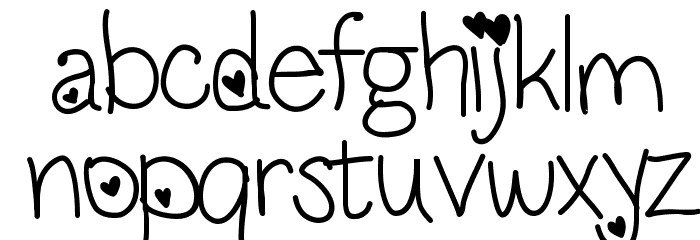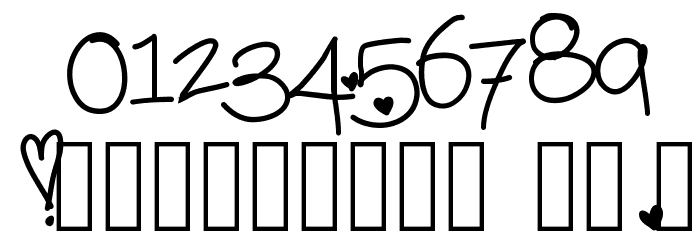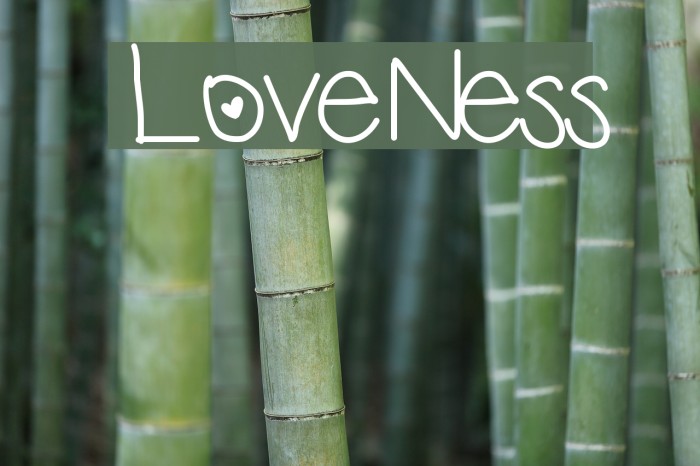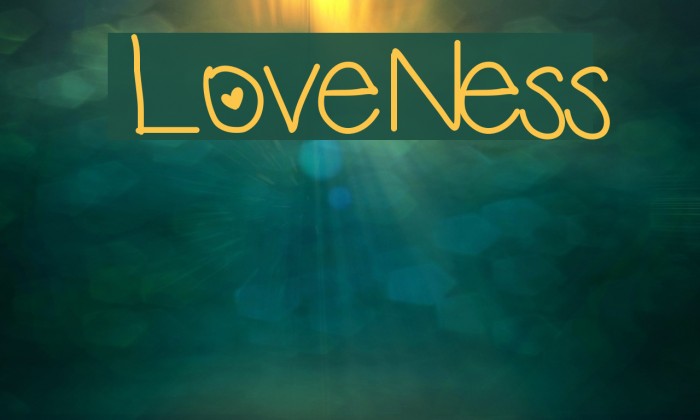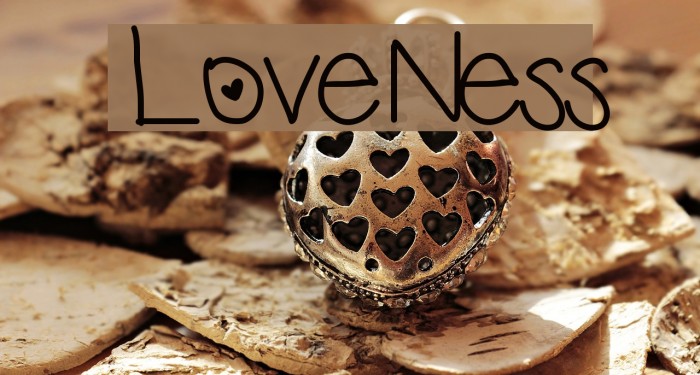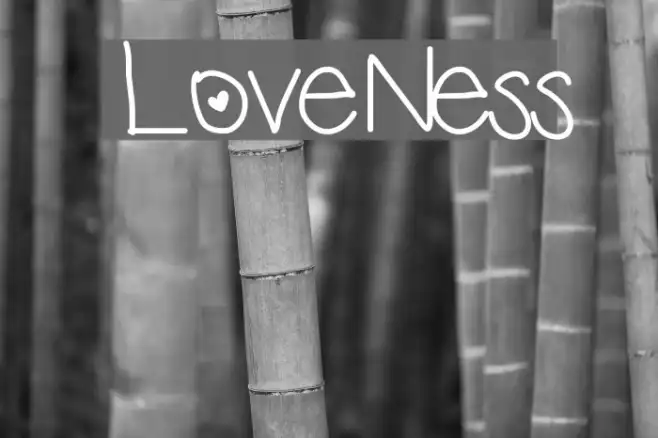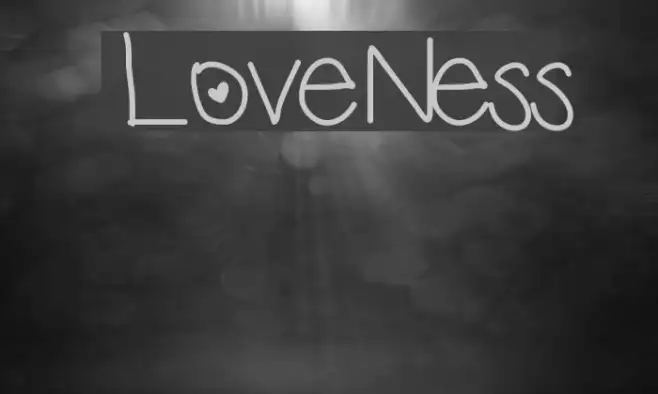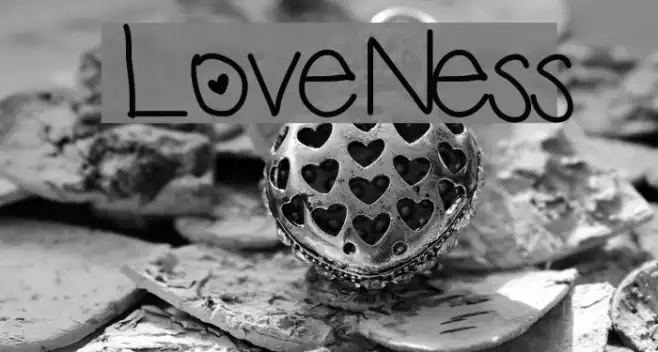
LoveNess Font
This playful and whimsical font features a handwritten style with unique heart embellishments integrated into several characters. The strokes are smooth and rounded, giving it a friendly and approachable appearance. The uppercase and lowercase letters maintain a consistent style, with the hearts adding a touch of charm and personality. Numbers and special characters are also included, each with its own distinctive flair. This font is perfect for projects that require a fun and lighthearted touch, such as greeting cards, children's books, or playful branding.
A playful handwritten font with heart embellishments for a whimsical touch.
- Proposed Projects: Ideal for greeting cards, children's books, playful branding, and invitations.
- Use Case: Headlines, Logos, Invitations